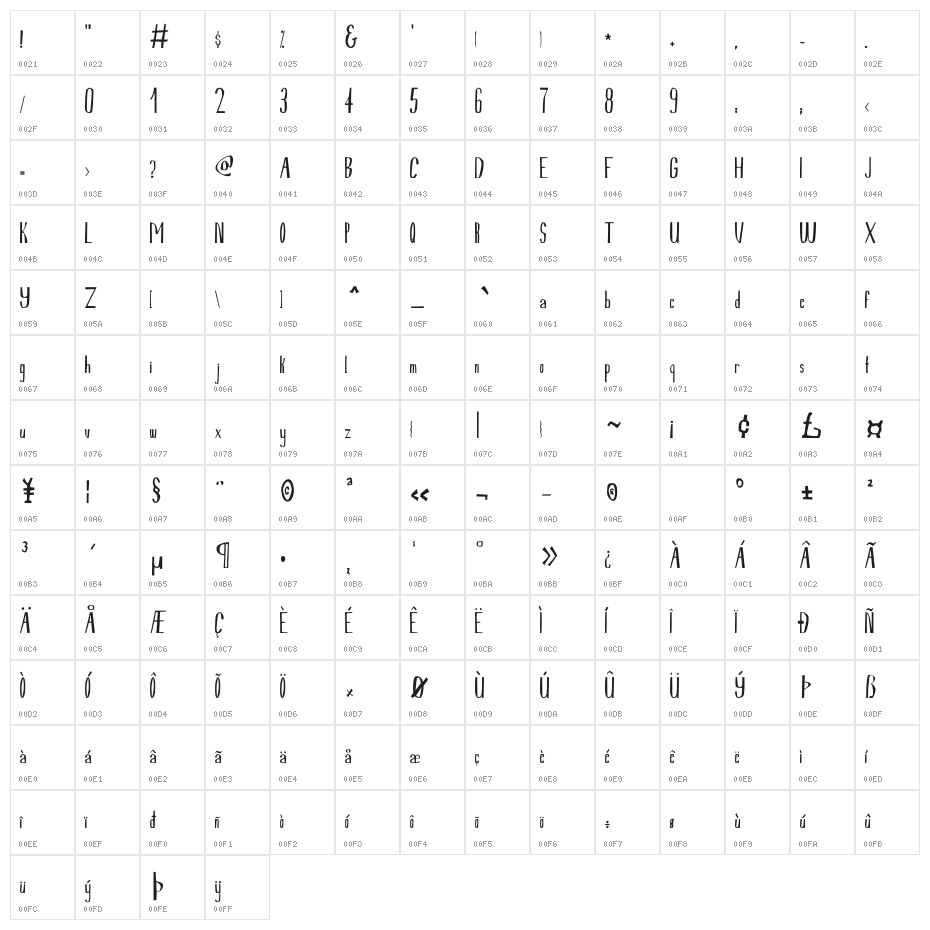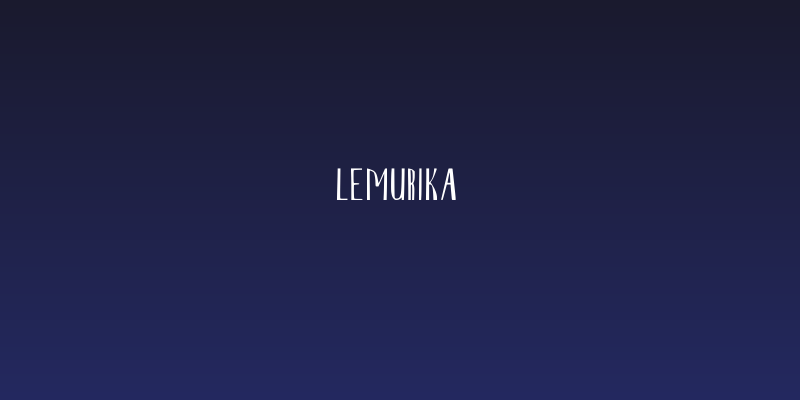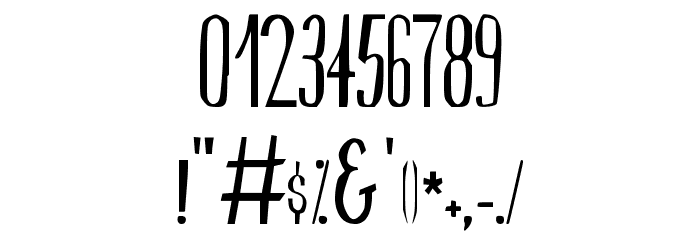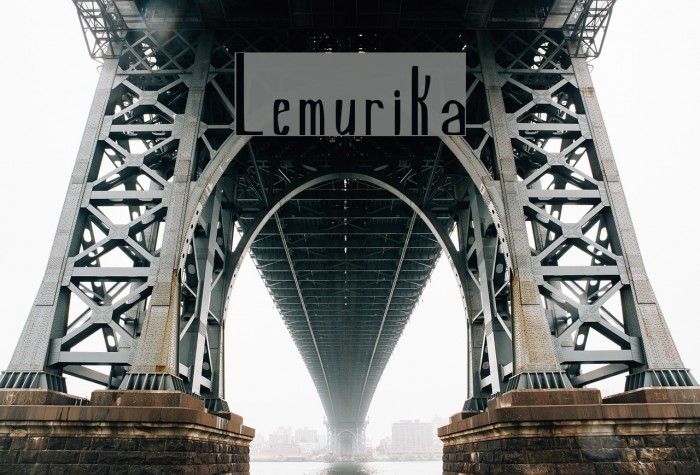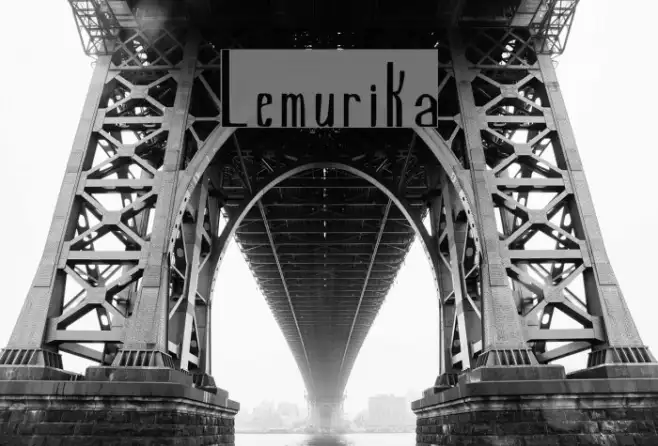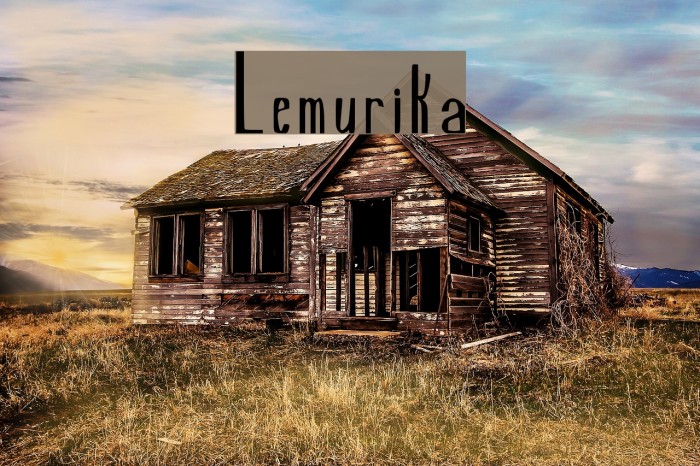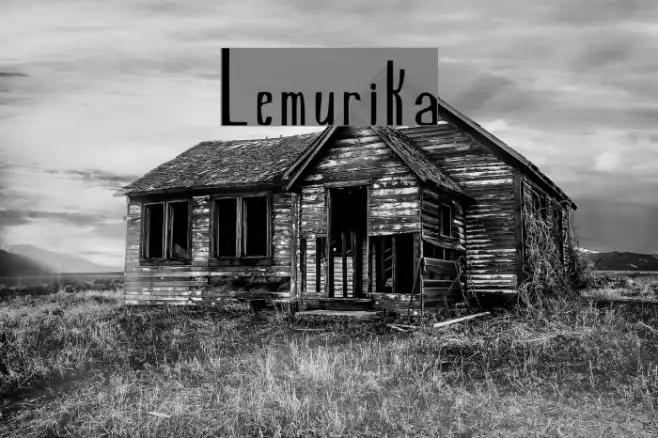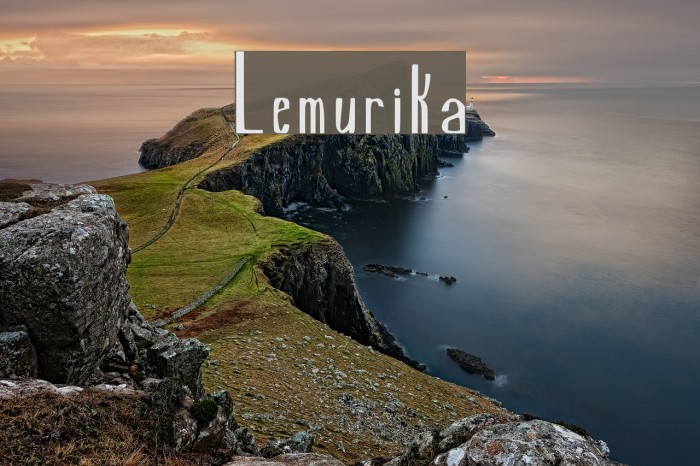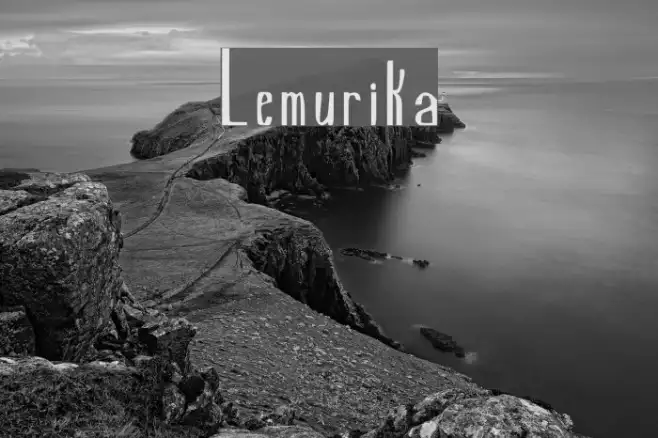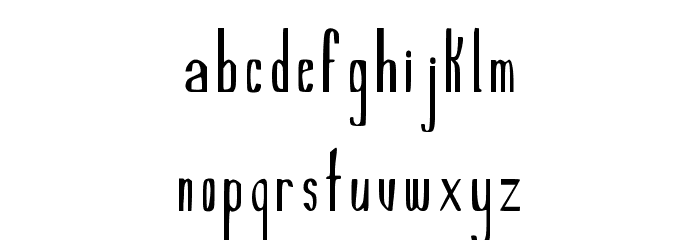
Lemurika Font
Lemurika Description
This font features a unique blend of modern and vintage elements, characterized by its tall, narrow letterforms and subtle curves. The uppercase letters are bold and slightly condensed, giving a strong presence, while the lowercase letters maintain a more delicate and elongated appearance. The numerals are consistent with the overall style, offering a clean and legible look. Special characters are designed with a playful touch, adding to the font's versatility. The contrast between thick and thin strokes is moderate, enhancing readability while maintaining a stylish aesthetic.
| Width | Condensed |
| Overall Style | Modern Vintage |
| Proposed Projects | Ideal for branding, poster design, and editorial layouts where a distinctive and stylish typeface is desired. |